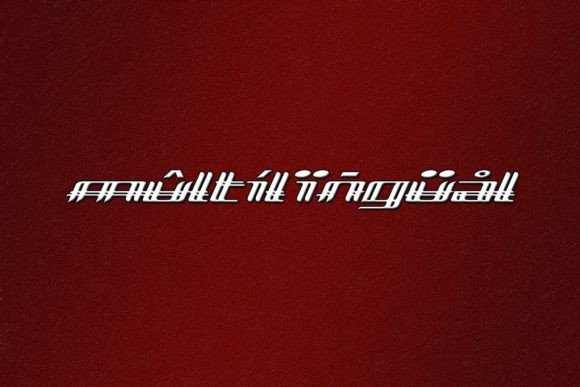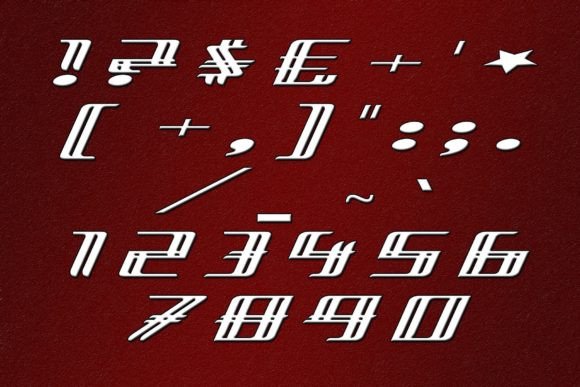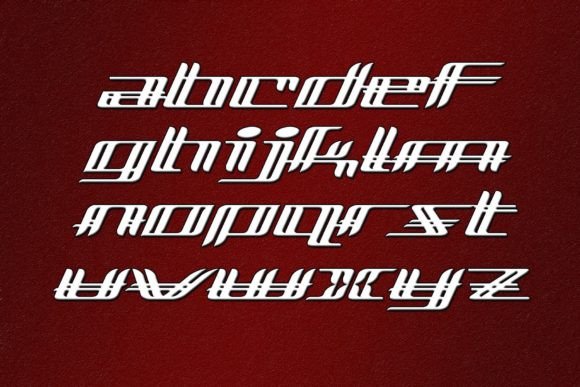
Unlock the Power of Unique Typography
Have you ever stared at a blank design canvas, struggling to find the perfect font to bring your creative vision to life? You know the feeling – it’s like searching for a needle in a haystack, only to find something generic and uninspiring. But what if I told you there’s a font that can change all that? Introducing the Front 2 Back Font, a game-changing display font that’s sure to elevate your design projects to the next level.
With its bold, eye-catching style, the Front 2 Back Font is perfect for designers looking to add a touch of modernity and sophistication to their work. Whether you’re creating a brand identity, a marketing campaign, or a stunning visual project, this font is sure to make a statement. And the best part? It’s incredibly versatile, making it easy to use in a wide range of design applications.
Front 2 Back Font Key Features
- Unique Characteristics: Front 2 Back Font features a unique, reversible design where the font appears the same when viewed from the front or the back, creating a striking visual effect.
- Font Style: This font is available in a single style, making it ideal for use in a variety of applications, from headings and titles to body text.
- Font Weight: This font has a single weight, providing a consistent and balanced appearance across different text sizes and applications.
Front 2 Back Font Review
Overall, I think the Front 2 Back Font is a visually appealing choice for certain design projects. ✨ The unique design and clever use of negative space really stand out, making it a great option for adding a touch of whimsy to a design.
The font’s versatility is also a plus, as it can be used in a variety of contexts, from logos and branding to digital products and print materials. ✨ The font’s bold, playful feel makes it particularly well-suited for use in children’s products or entertainment brands.
- ⚠️ The font’s limited character set may make it difficult to use for extended blocks of text.
- ⚠️ The font’s unique design may not be to every designer’s taste, and may not be suitable for more formal or professional projects.
- ⚠️ The font’s use of negative space may make it difficult to read at small font sizes or in low-light conditions.
Overall, I think the Front 2 Back Font is a great choice for designers who are looking to add a bit of personality and flair to their projects. While it may not be the best choice for every project, it’s definitely worth considering for those looking to create something unique and eye-catching.
Tip: Use the Front 2 Back Font to create eye-catching headlines and titles that grab attention.
Tip: Use the Front 2 Back Font to create unique and creative graphics for social media and marketing materials.
Tip: Use the Front 2 Back Font to create engaging and attention-grabbing presentations and reports.
The Front 2 Back Font is perfect for:
- Creativity and design projects
- Social media graphics and marketing materials
- Custom text elements and graphics
Remember to use the Front 2 Back Font to add a touch of creativity and uniqueness to your designs.